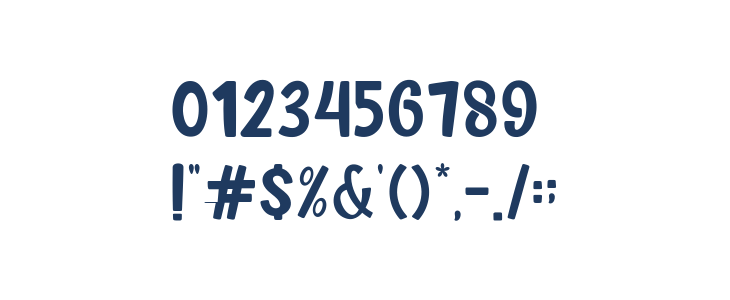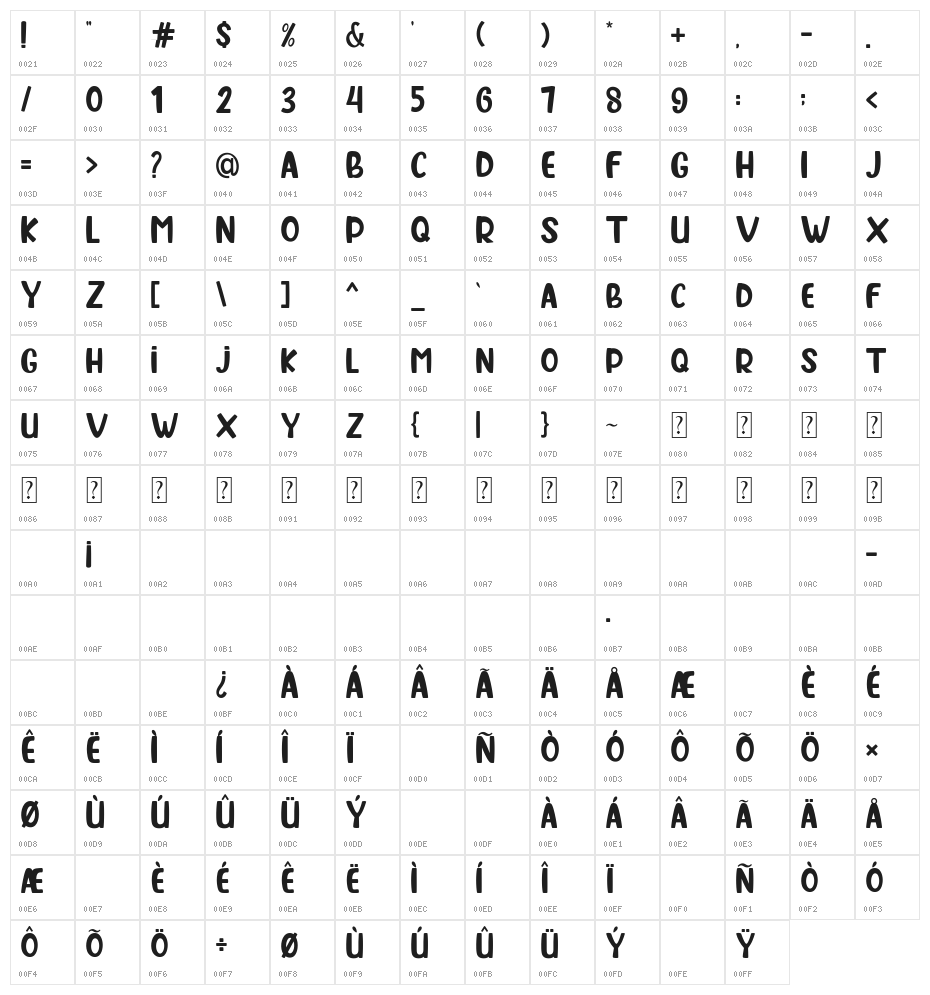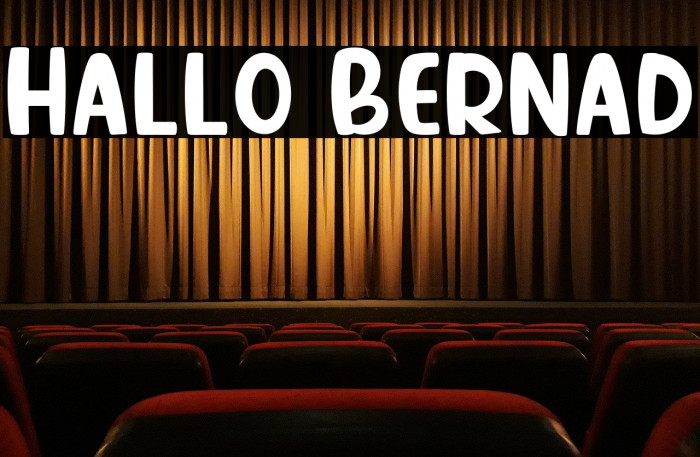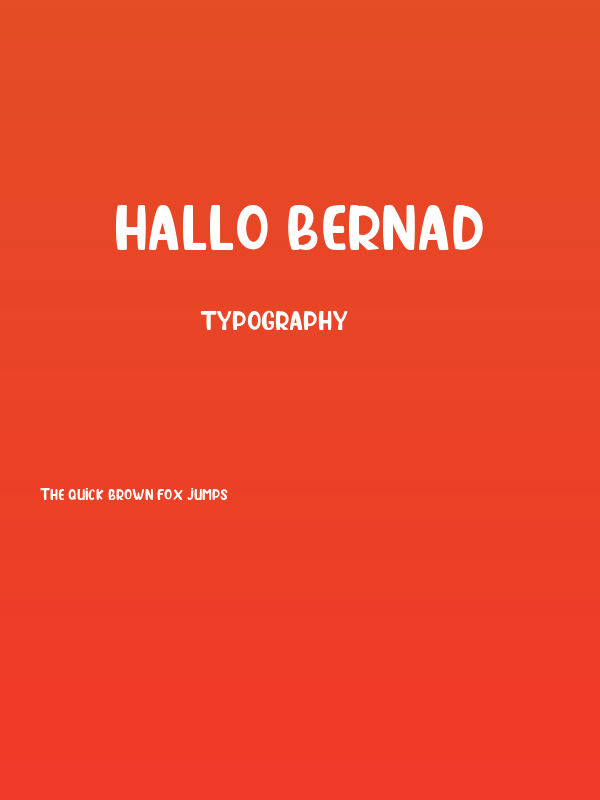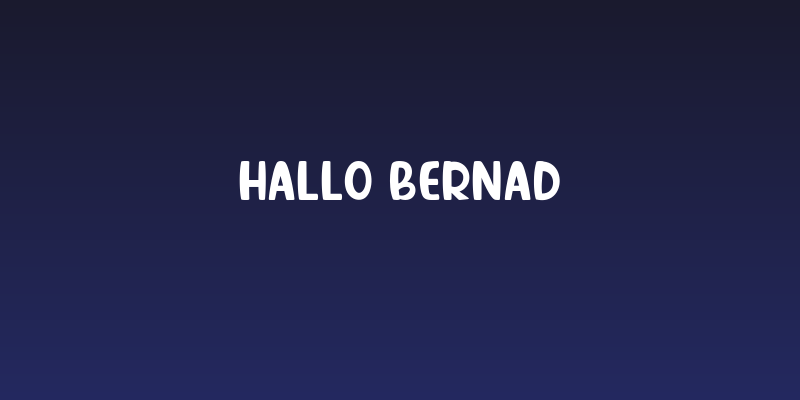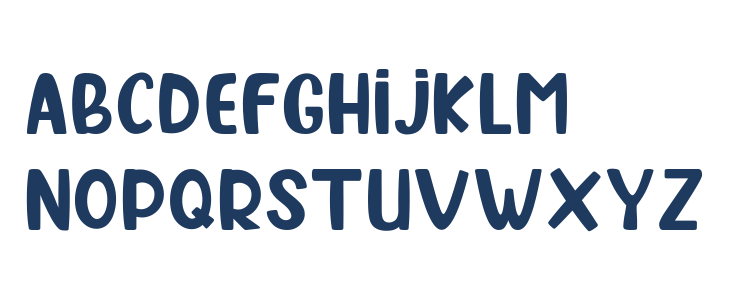
Hallo Bernad Font
Hallo Bernad Description
This font features a playful and bold style, characterized by its thick, rounded strokes and slightly irregular shapes. The uppercase and lowercase letters maintain a consistent height, creating a uniform appearance. The numbers and special characters follow the same design principles, ensuring a cohesive look across all glyphs. Its informal and friendly aesthetic makes it suitable for projects that require a touch of whimsy and approachability. The font's boldness ensures readability, even at smaller sizes, while its unique character shapes add personality to any text.
| Proposed Projects | Ideal for children's books, playful branding, casual invitations, and social media graphics. |